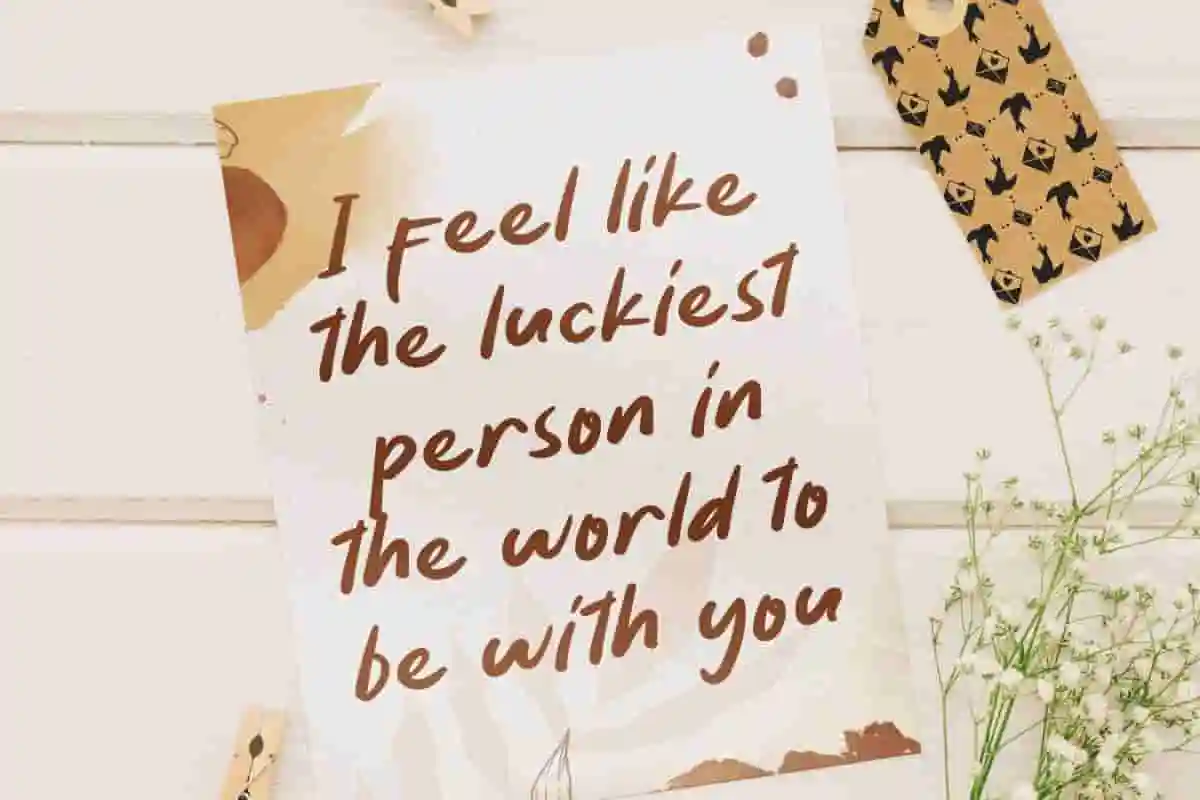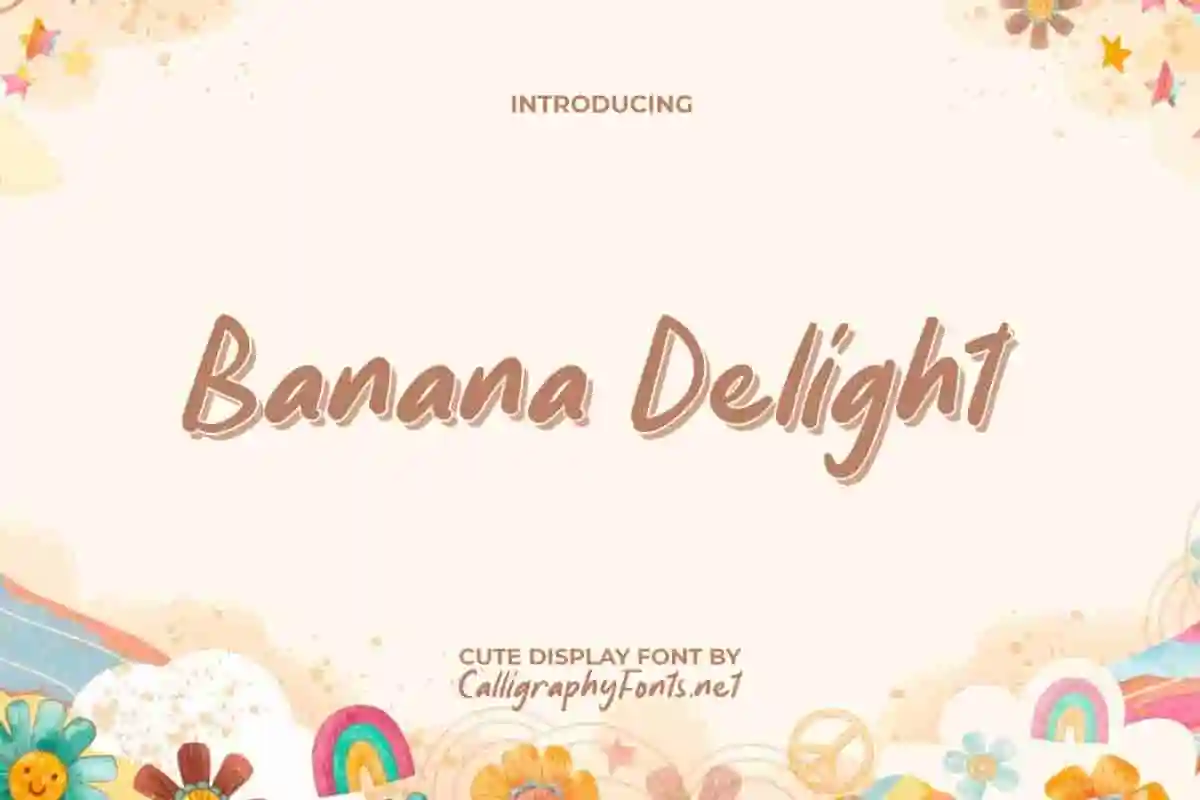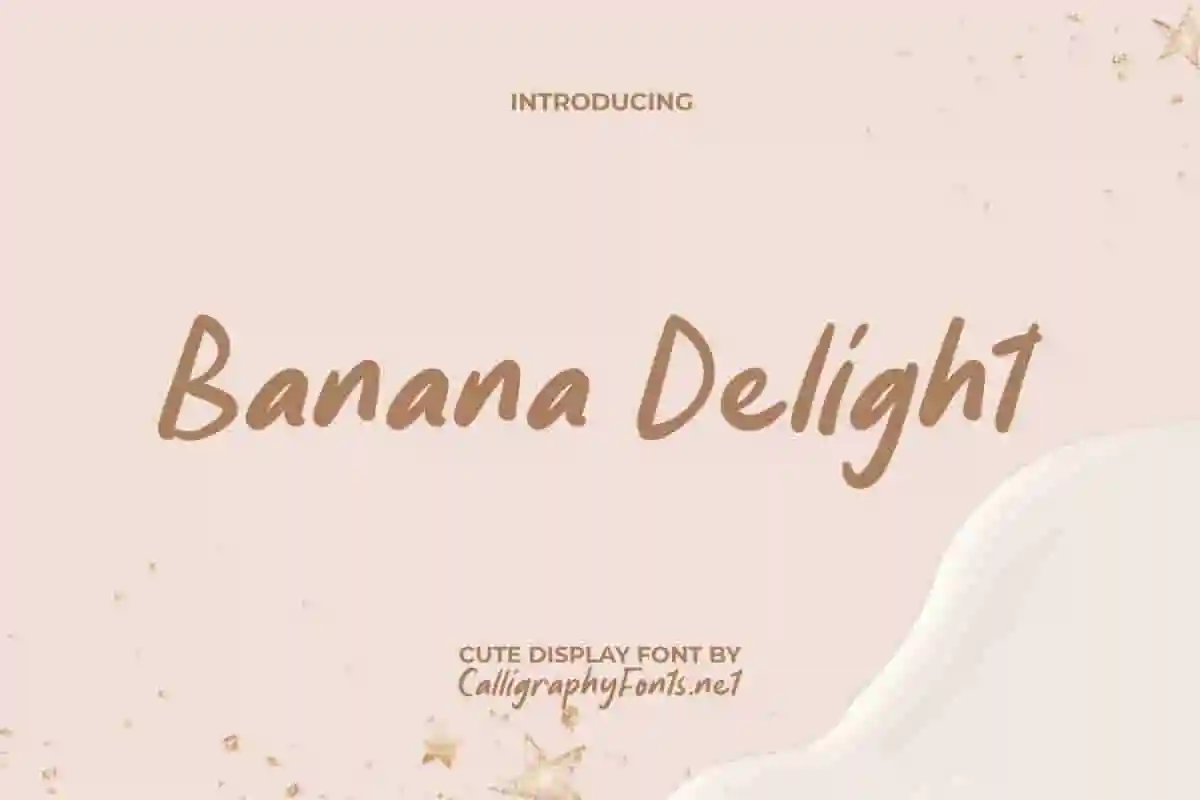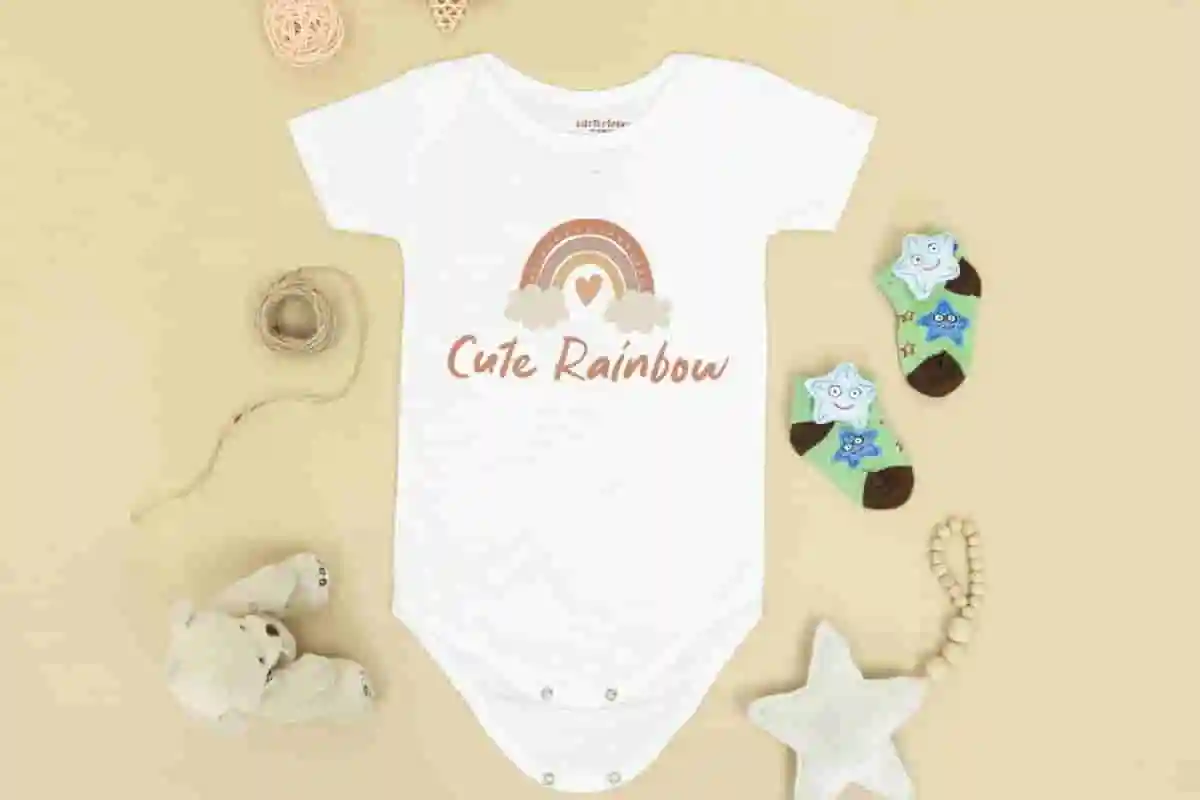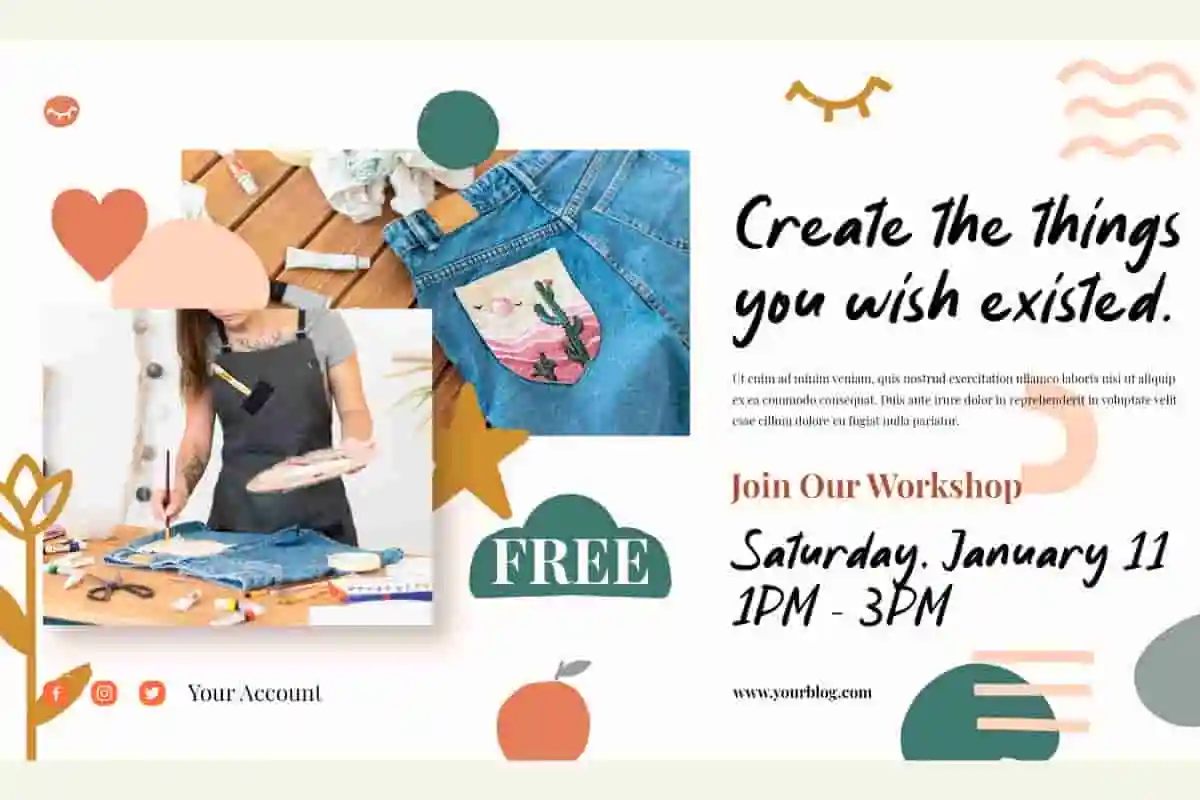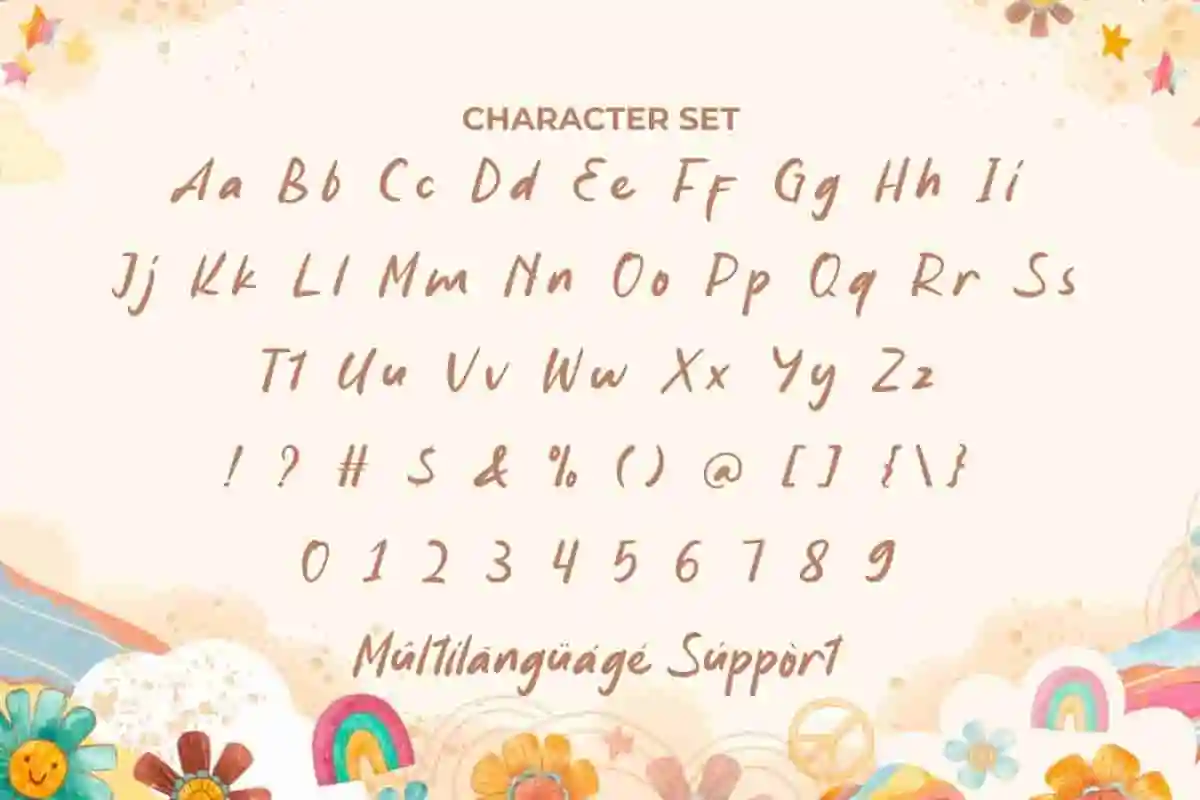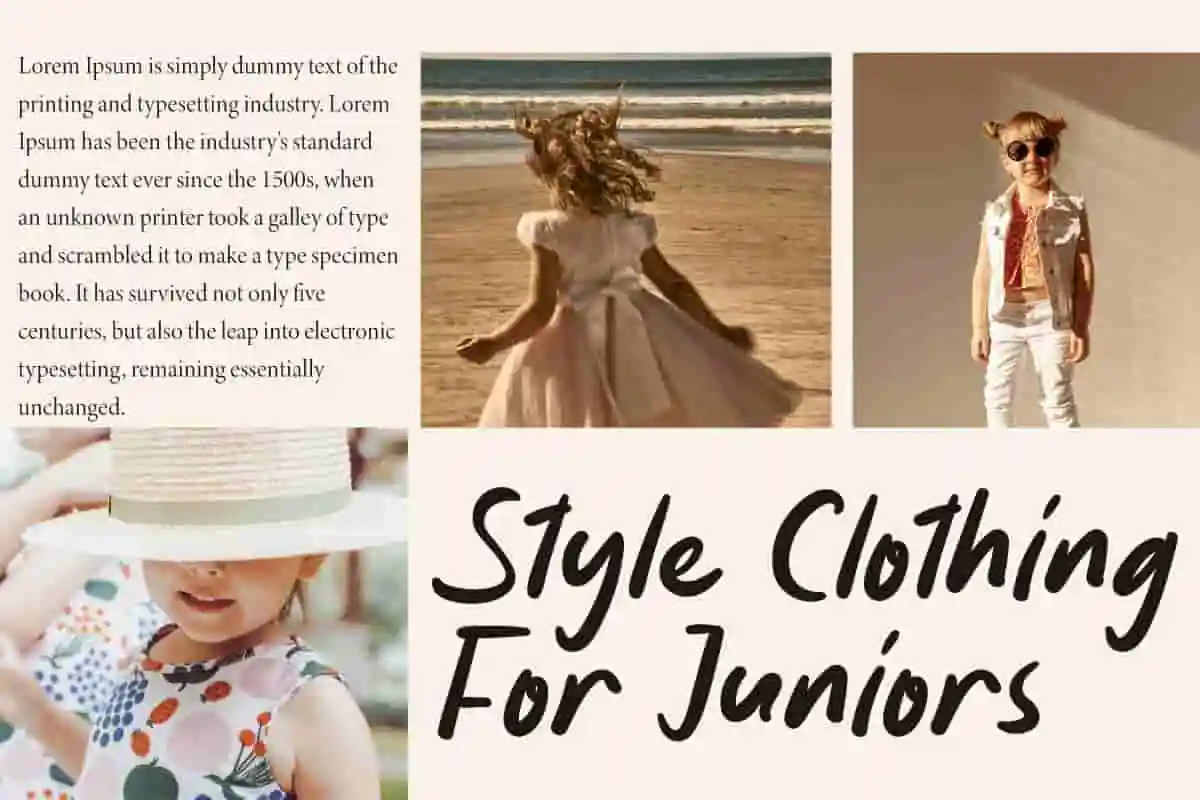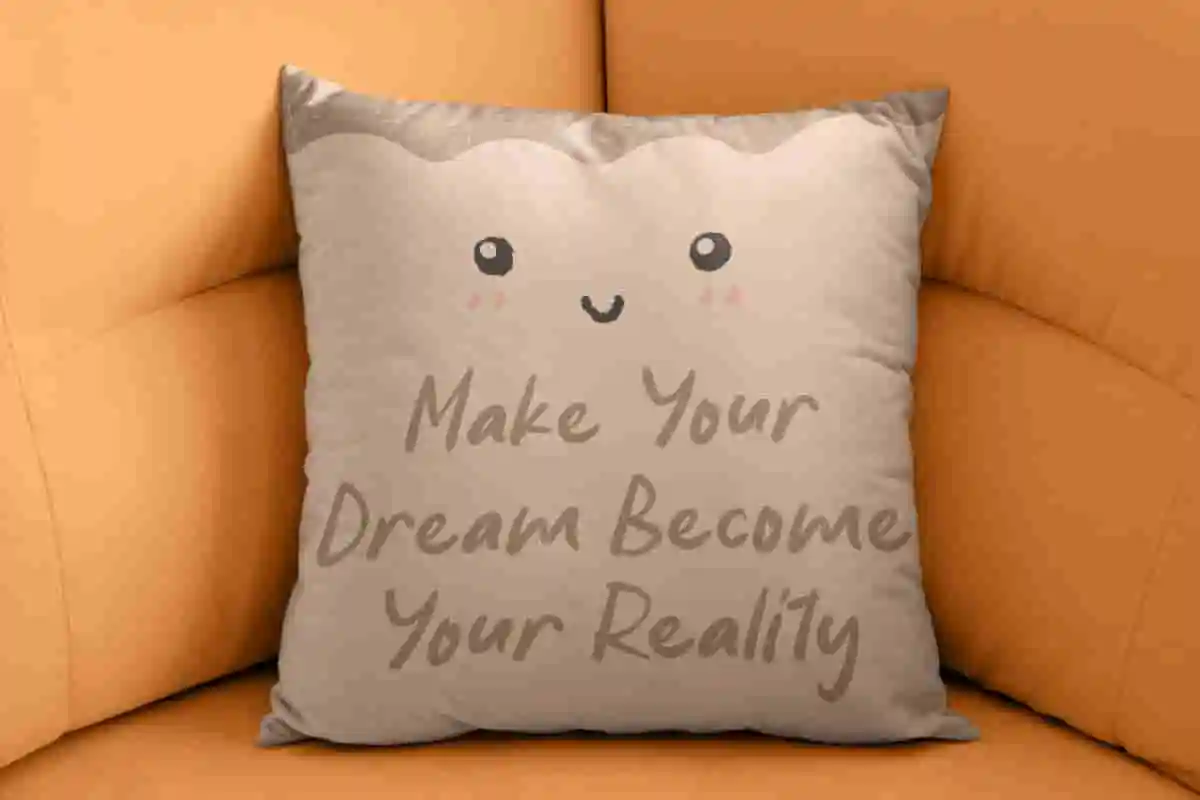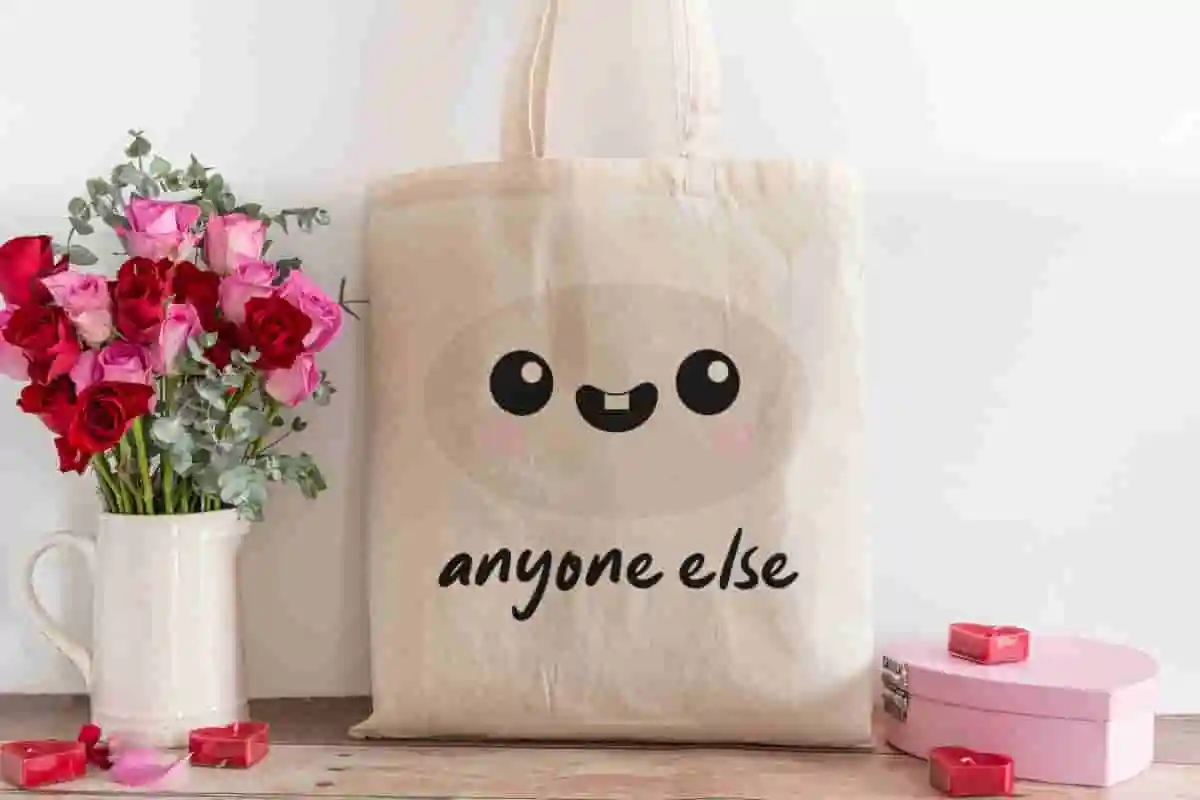
Banana Delight
Banana Delight Display Font
Banana Delight Font is a chic and ethereal handwritten font that comes with a modern and fun style that’s perfect for making anything pop! This font is perfect for clothes for babies, craft, flyer, furniture, quotes, etc.
Banana Delight Font is a beautiful and charming script font that combines cute letter display with modern versatility. Its flowing curves with a cheerful feel are perfect for making anything look a lot more interesting. Whether for banners, blogs, brand logo, brochure, covers, flyer, greeting cards, headlines, invitations, label tag, mockup, poster, printed materials, quotes, stationery, template, title, watermark, website, and much more.
Add a splash of joy and personality to your projects with Banana Delight Display Font! This fun, playful typeface is perfect for bringing a fresh and vibrant look to your creative work. Whether you’re designing kids’ products, food packaging, party invitations, or social media graphics, Banana Delight’s lively and quirky style will make your designs pop with energy and charm.
Looking for a font that’s full of energy and fun? Meet Banana Delight Display Font, a playful and bold typeface designed to add a joyful vibe to your projects. Perfect for kids’ branding, food packaging, party invites, and more! This font features quirky, lively letterforms that are both eye-catching and easy to read. Whether you’re creating posters, logos, social media graphics, or invitations, Banana Delight helps your design stand out with personality.
Inject fun and energy into your creative projects with Banana Delight Display Font! This vibrant and playful typeface is perfect for adding a fresh, youthful feel to your designs, whether it’s for kids’ products, food packaging, event invitations, or social media graphics. Banana Delight stands out with its bold, quirky letterforms and smooth curves that make every word pop. It’s designed to bring joy and excitement, making your projects unforgettable and engaging.
• Full uppercase
• Highly readable
Banana Delight Font is an adorable display font designed with a lot of playfulness resulting in a slanted handwritten font with casual letterforms that mimic a sweet and informal handwriting style, perfect for adding a personal touch to your designs. Whether for animal cafes, apparel, author, bakery, education, film, graphic design, handicraft, home furniture, interior design, kids fashion, movie, photography, toy, web designer, and much more.
Banana Delight Font comes with a complete set of Uppercase and Lowercase Basic Characters, Numbers, a large range of Punctuation and Symbols. It is supported with multilingual characters and ready to use both on Windows machine or Mac with simple installations. It’s tested to work well in the Adobe Apps (Illustrator, Adobe InDesign, Adobe Photoshop) CorelDraw, and others. PUA Encode Characters means you can access all the characters easily – Fully accessible without additional design software.